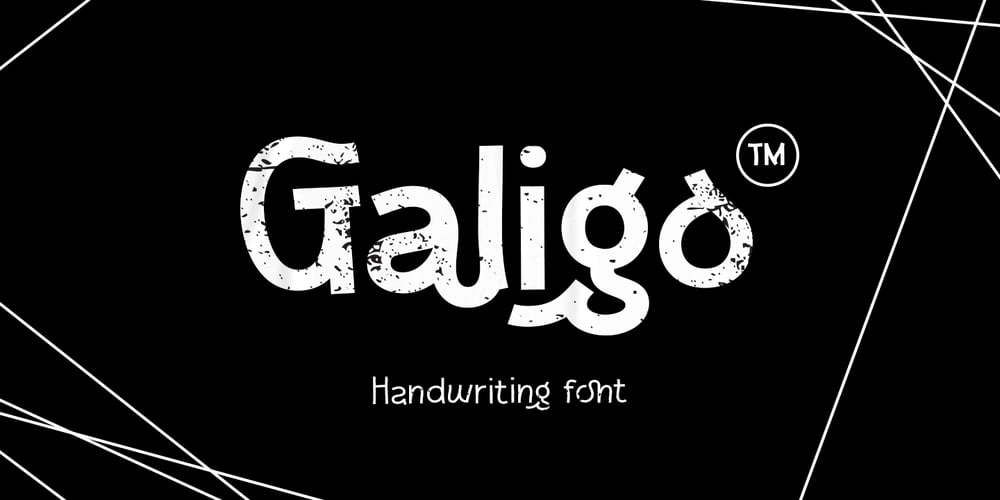
Galigo Font Family was designed by Jarnawi Saja and published by Grontype. Galigo contains 2 styles and family package options. Galigo is a captivating hand-drawn font that seamlessly blends artistic flair with versatile functionality. This unique typeface showcases a delightful variety with both light and regular forms, allowing you to effortlessly convey different moods and styles in your projects. Whether you’re designing invitations, posters, branding materials, or any other creative endeavor, Galigo provides the versatility to express your ideas with finesse. Features: Regular & Light Uppercase & Lowercase Basic Latin Glyphs Multilingual Support Numeral and Punctuation Ligatures & Alternates Thankyou for picking up this font, hope you enjoy it.Regard. Grontype